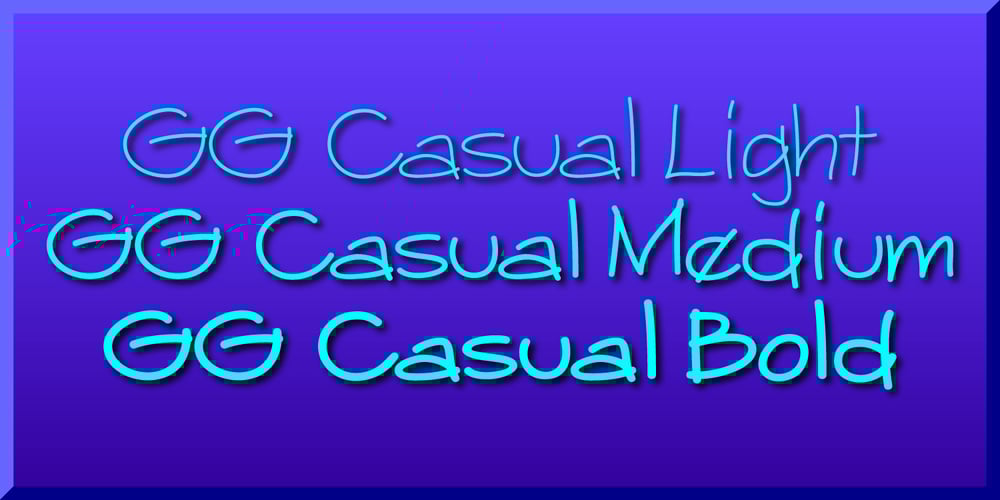
GG Casual Font Family was designed by Gerald Gallo and published by Gerald Gallo. GG Casual contains 3 styles and family package options. GG Casual is based on a hand lettering style of Gerald Gallo. The family is casual and informal and is ideal for use in conveying these qualities.